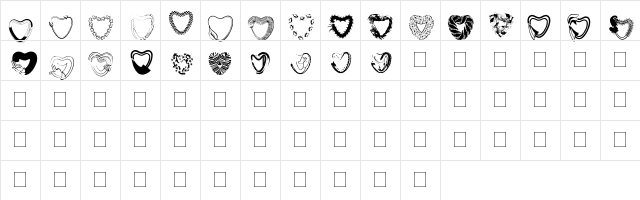
bc-fontabulous-hearts Regular
Design Context for bc-fontabulous-hearts Typeface
bc-fontabulous-hearts is a composed and adaptable typeface that performs quietly and consistently across a wide range of design contexts.